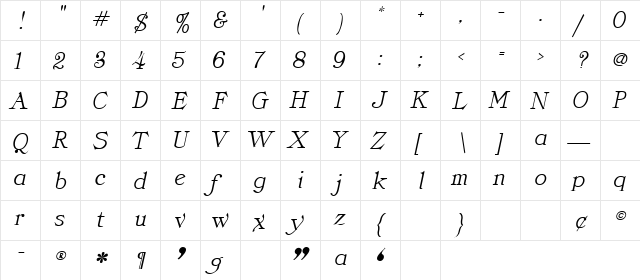
Thick N Thin 2 Italic
Design Context for Thick N Thin 2 Typeface
Thick N Thin 2 offers clean, dependable letterforms without strong stylistic allegiance, making it a practical choice for designers who need flexibility. Its italic angle brings a sense of urgency and motion to the letterforms. Its slender proportions lend an understated elegance to any composition.
Pro Tip: Use Thick N Thin 2 for emphasis, pull quotes, and subheadings where its slanted energy can add rhythm to the layout.